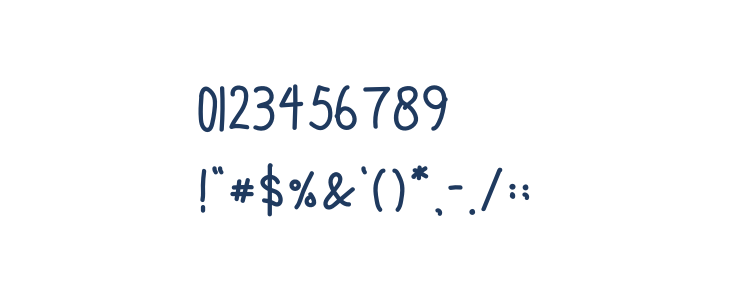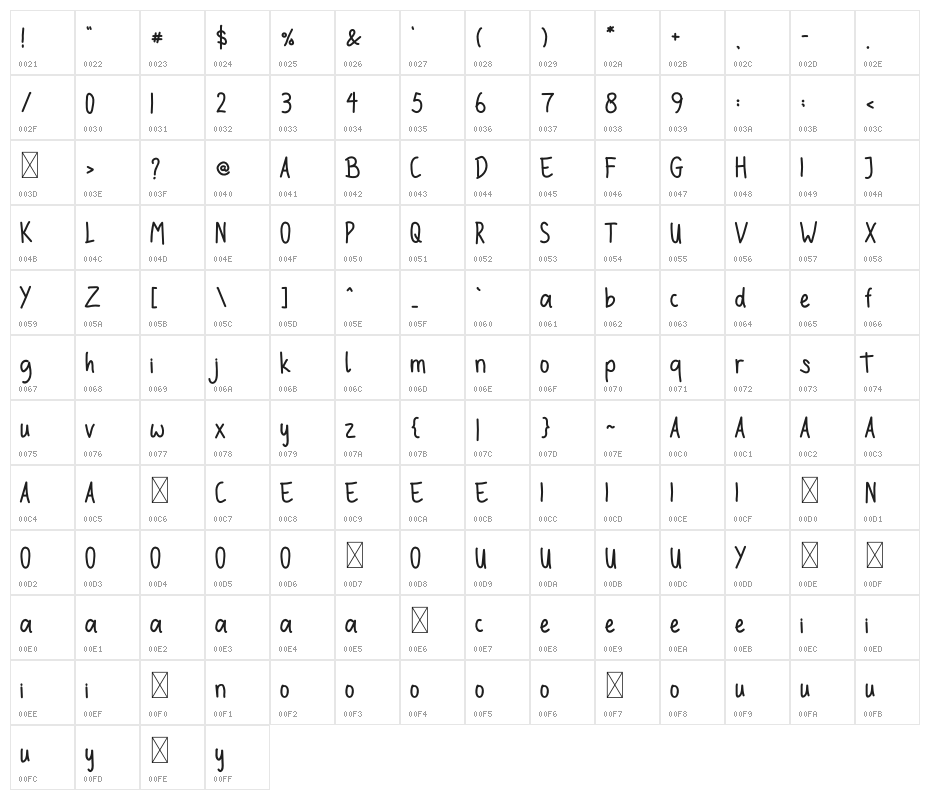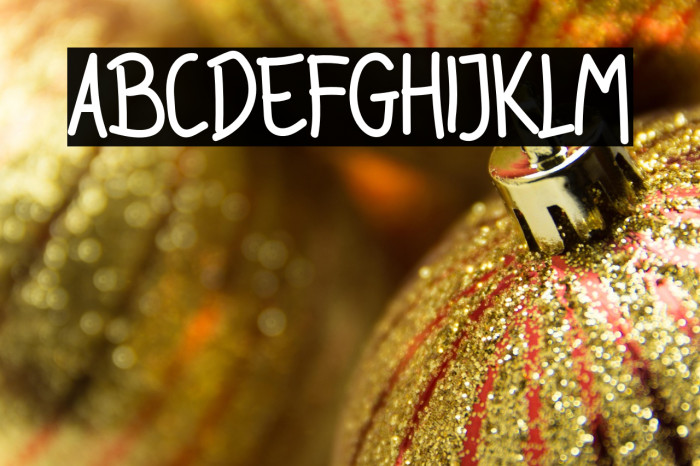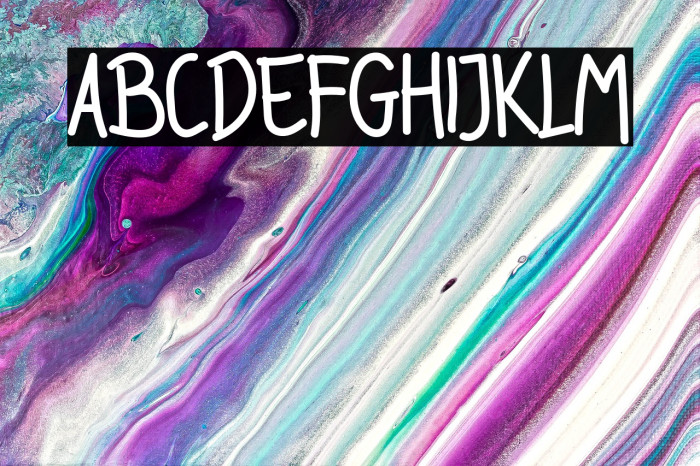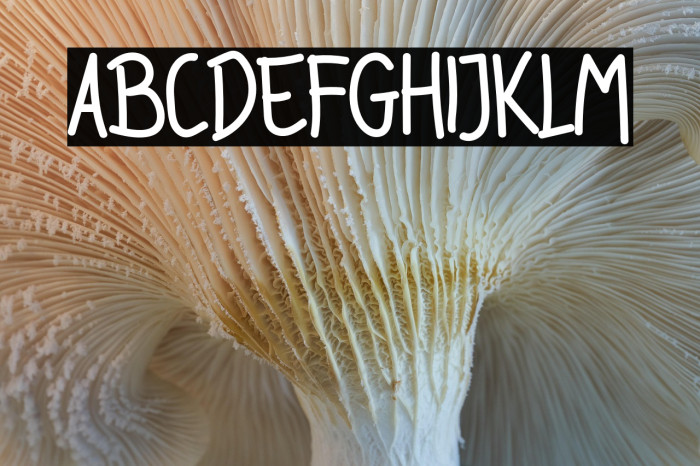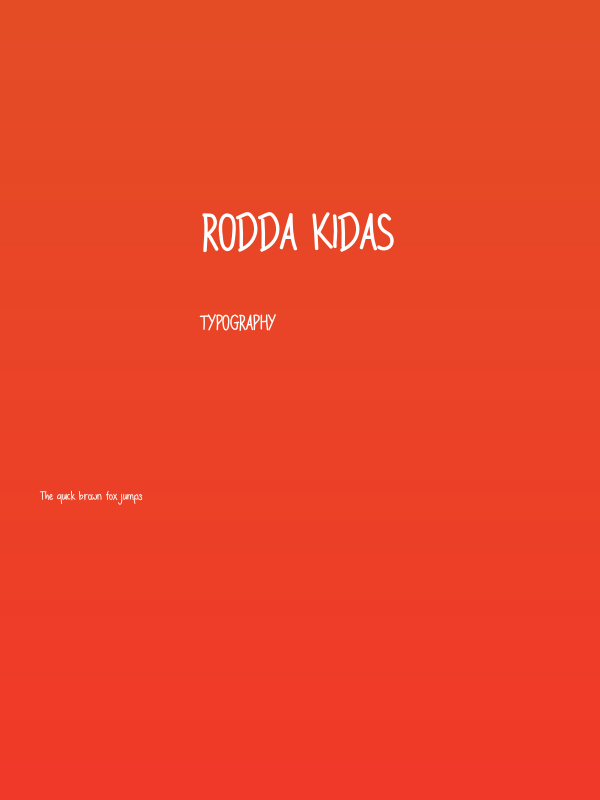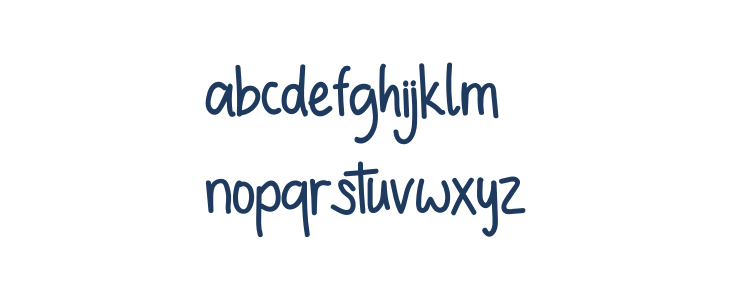
Rodda Kidas Font
Rodda Kidas Description
This font features a playful and casual handwritten style, characterized by its smooth, rounded edges and slightly irregular letterforms. The uppercase letters are bold and prominent, while the lowercase letters maintain a consistent flow with a touch of whimsy. The numerals are clear and easy to read, matching the overall friendly aesthetic. Special characters are well-integrated, maintaining the same informal and approachable feel. This font exudes a sense of warmth and creativity, making it suitable for projects that require a personal touch.
| Use Case | Logos, Headlines, Informal Text |
| Proposed Projects | Ideal for greeting cards, children's books, casual branding, and social media graphics. |